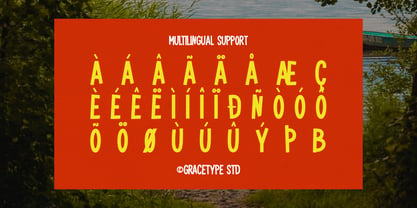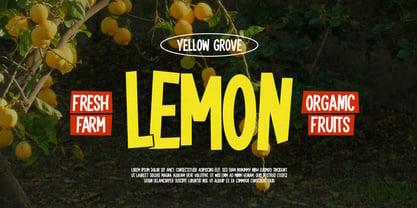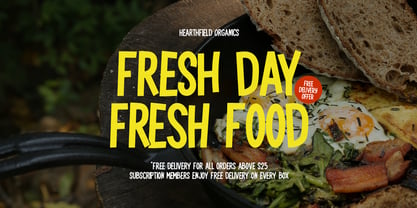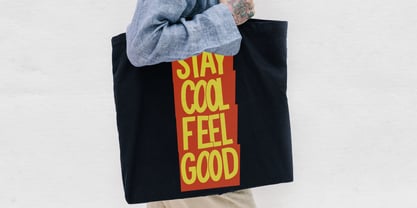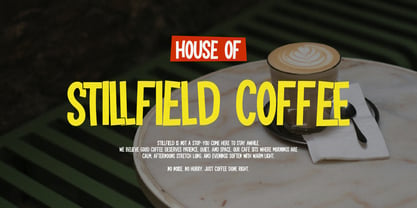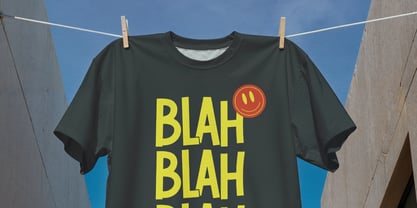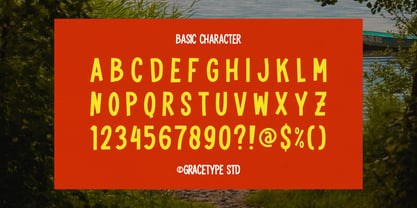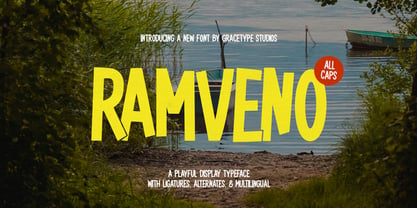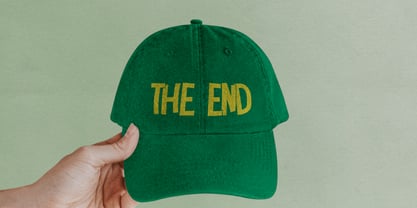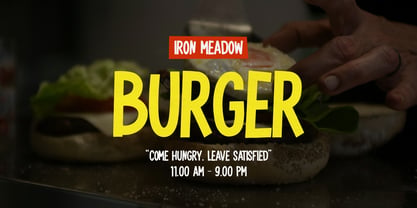
Ramveno
by Tini Fitriani
The Ramveno Font Family was designed by and published by Tini Fitriani. Ramveno contains 2 styles and family package options. More about this family
Ramveno | Playful Display, from Gracetypestudio, suitable for any projects such as: logos, branding projects, homeware designs, product packaging, mugs, quotes, posters, shopping bags, t-shirts, book covers, name card, invitation cards, greeting cards, label, photography, watermark, special events, and all your other lovely projects that need a Serif taste.